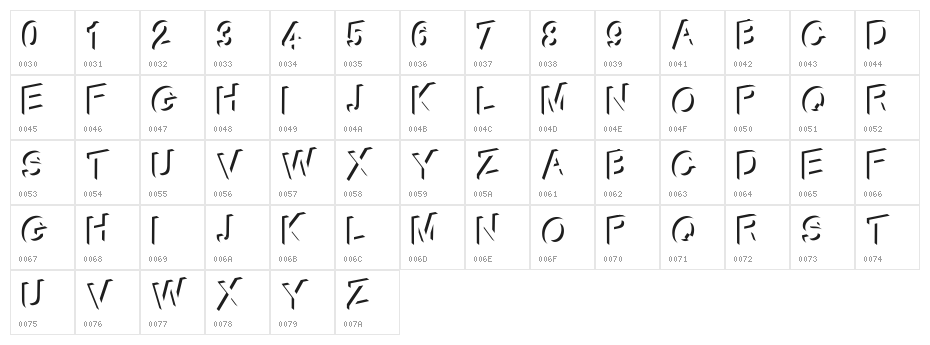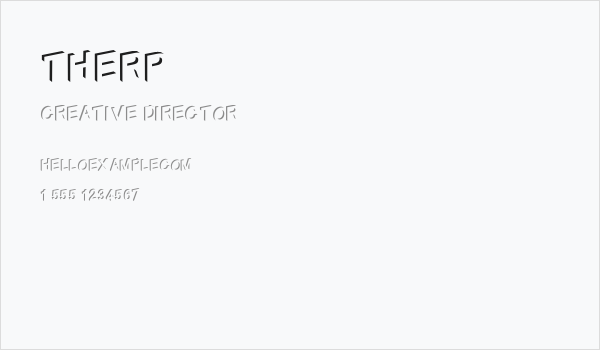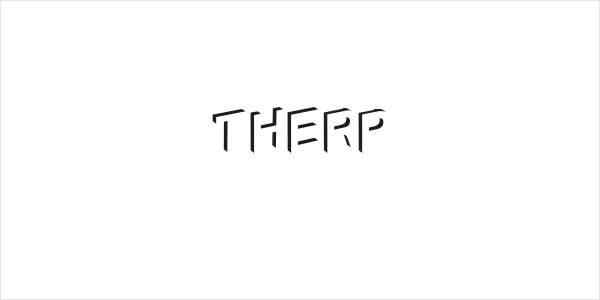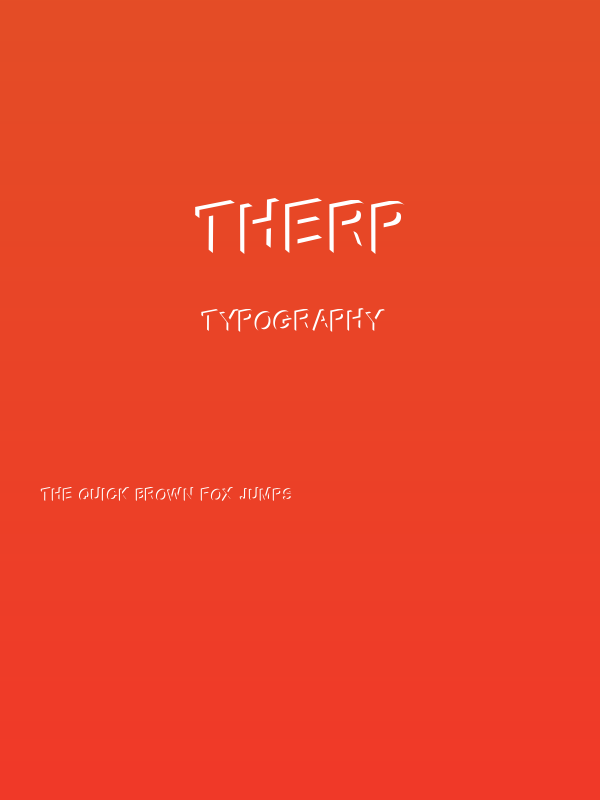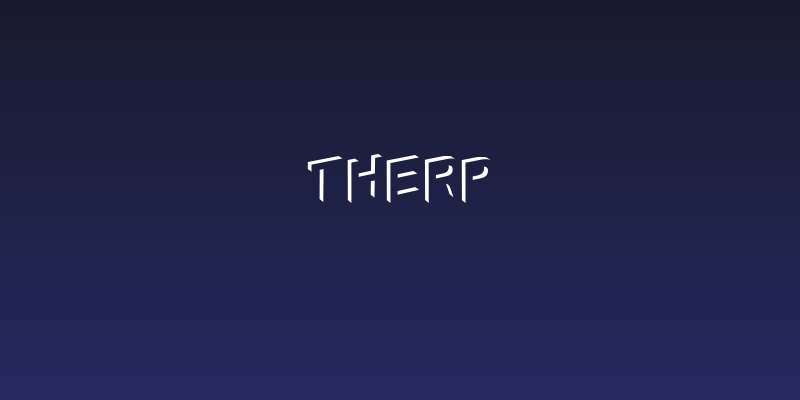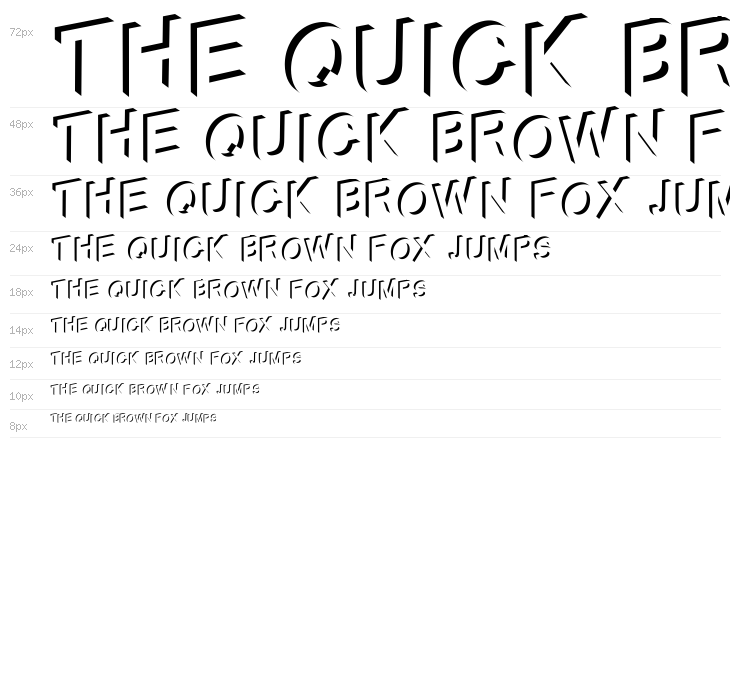
Therp Font
Therp Description
This font features a bold and dynamic stencil design, characterized by its sharp angles and geometric shapes. The letters are constructed with a distinct cut-out style, creating a sense of movement and modernity. The uppercase and lowercase letters maintain a consistent style, with each character exhibiting a unique interplay of solid and negative spaces. The numerals follow the same aesthetic, ensuring uniformity across all characters. This font's striking appearance makes it ideal for attention-grabbing designs.